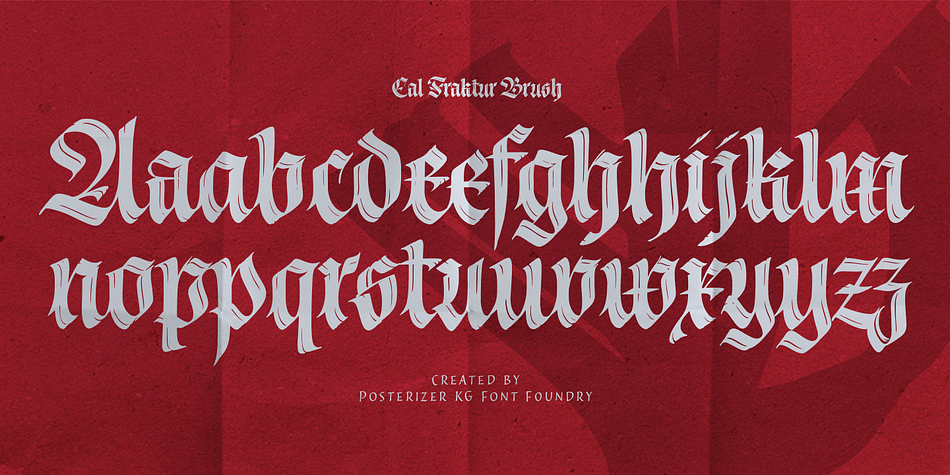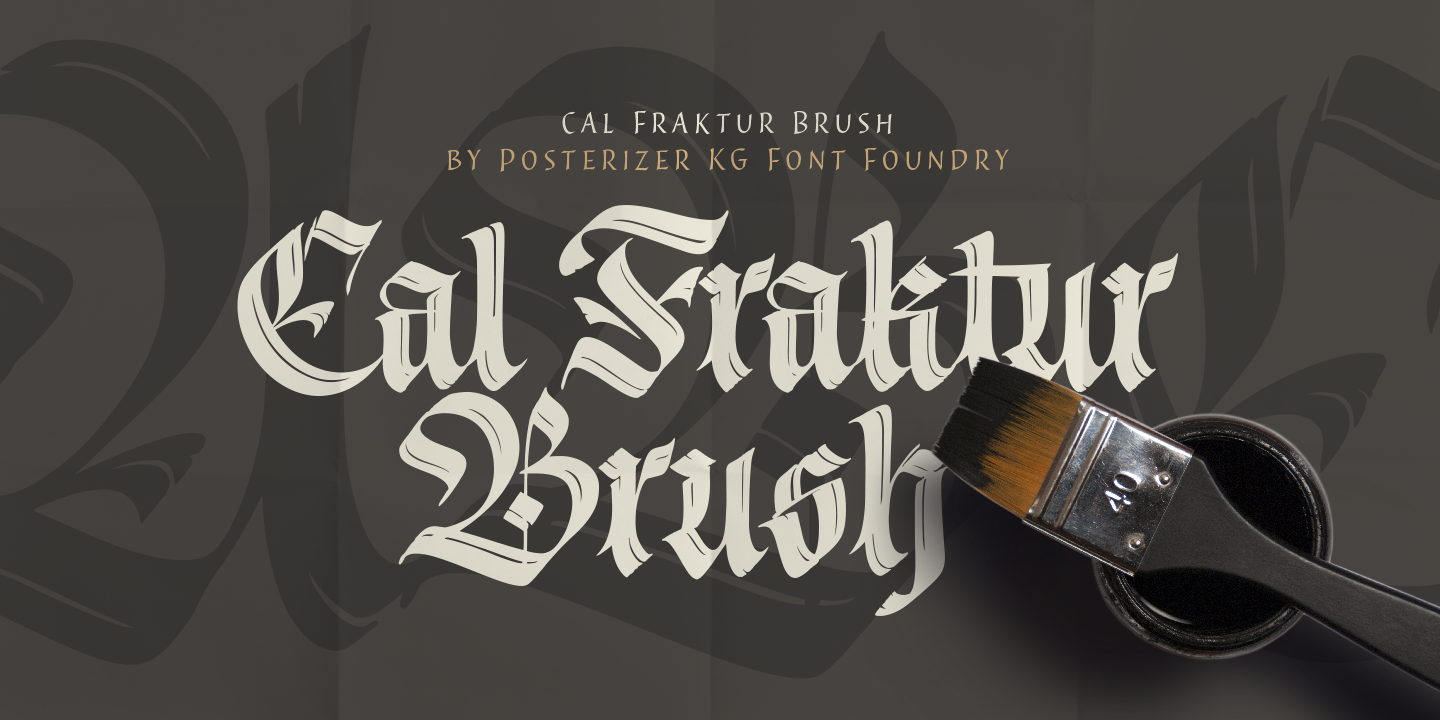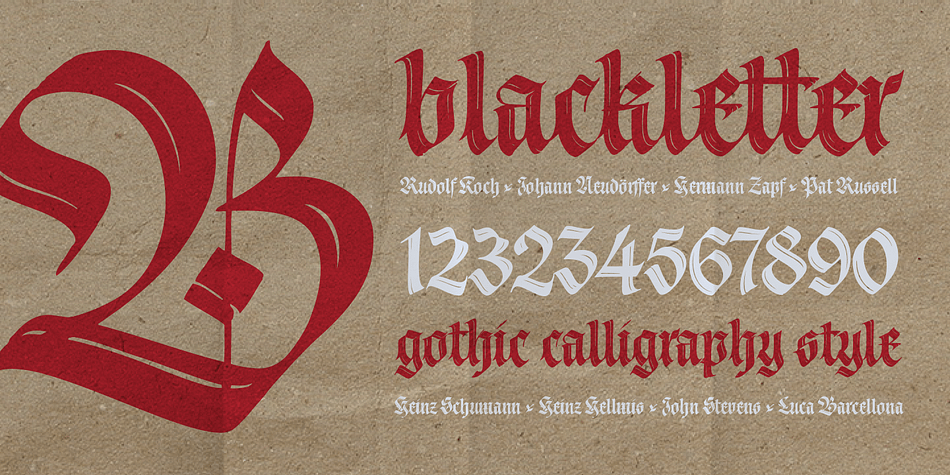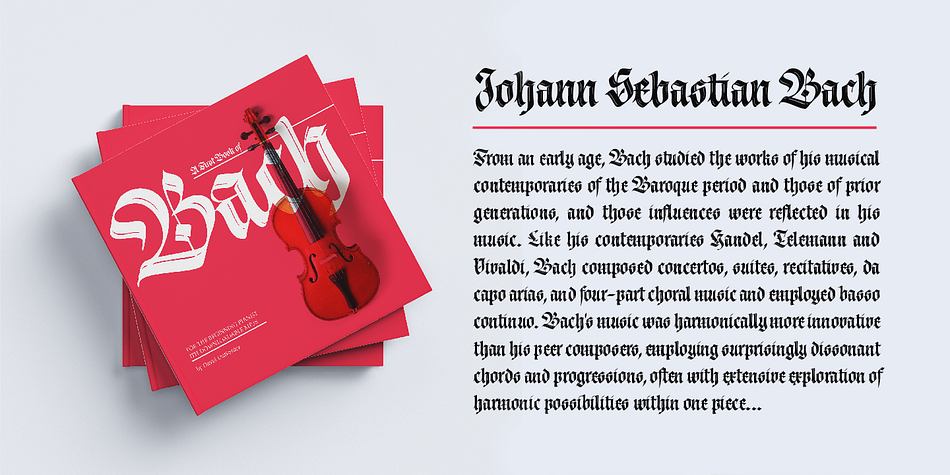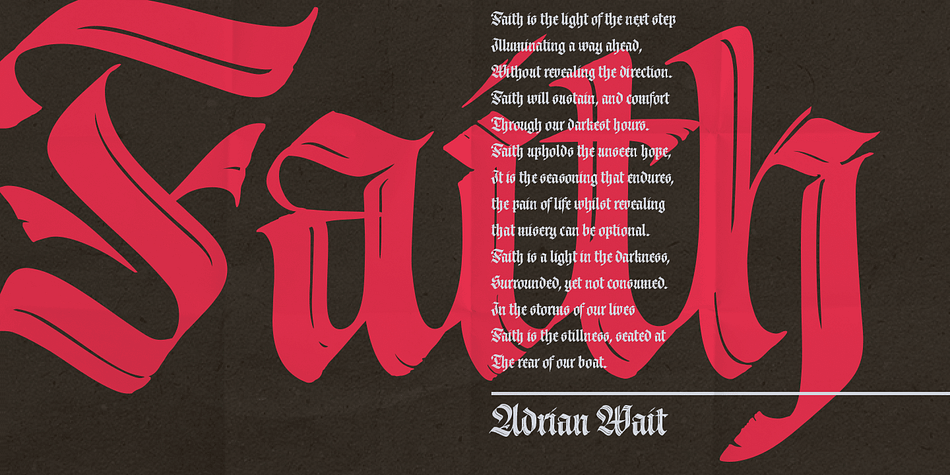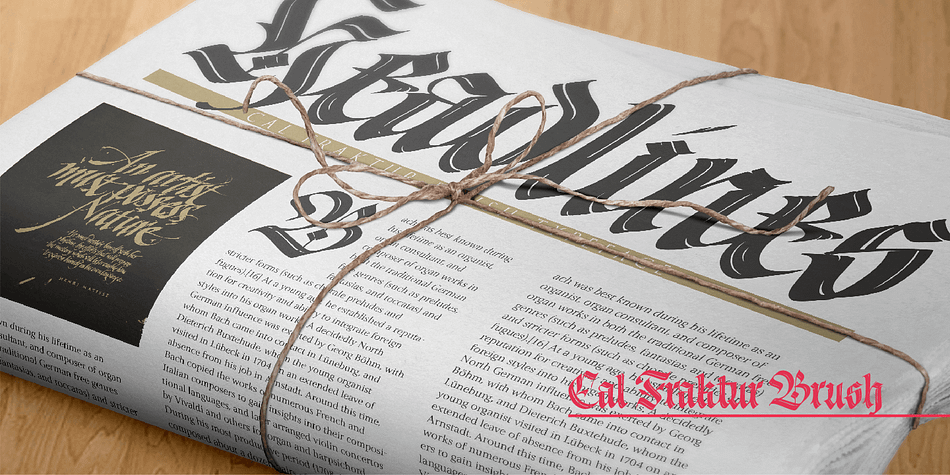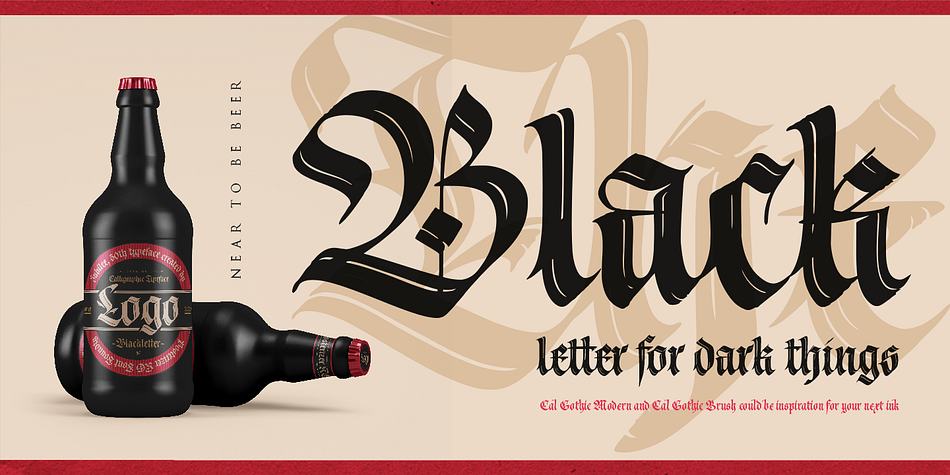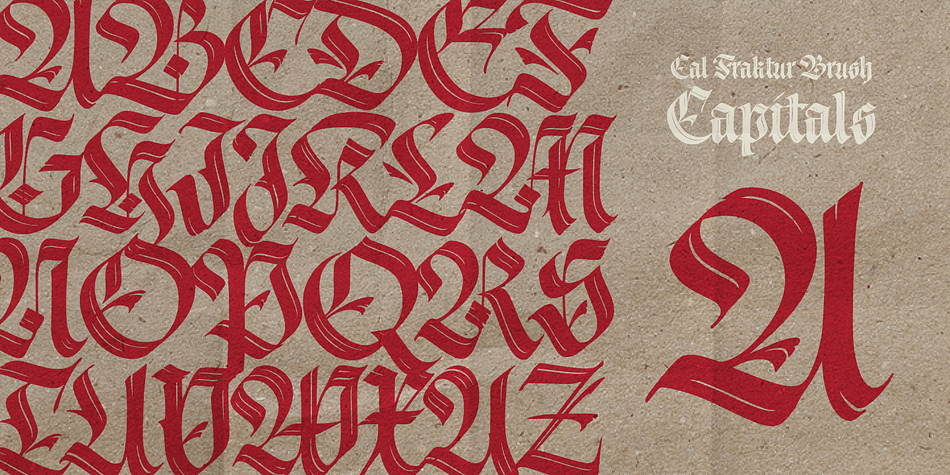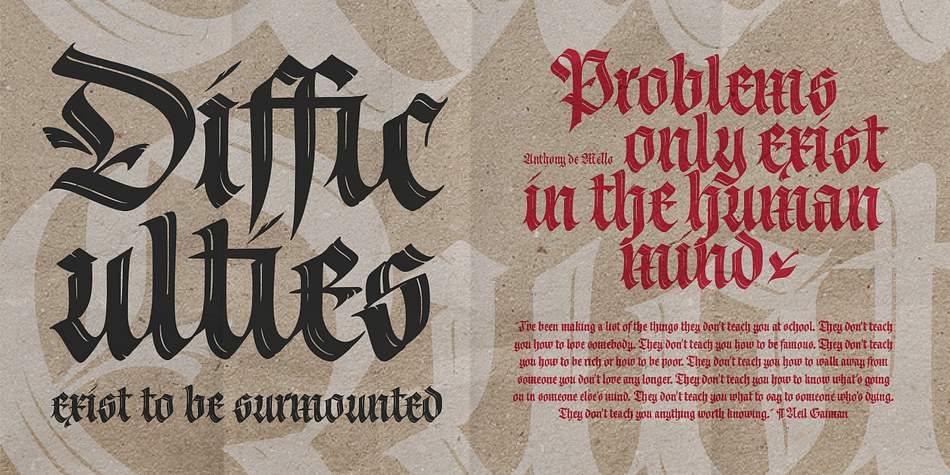
Designed by Lazar Dimitrijević, Cal Fraktur Brush is a blackletter and historical font published by Posterizer KG.
Cal Fraktur Brush is one more font from the PKG “Cal” (Calligraphic) group. This time, we used a wide brush instead of the calligraphic pen for the sketches.
This font is widely used in the typographic creation of shorter text forms such as headlines, tattoo and graffiti quotes, book covers, t-shirt designs, logos, posters, movie spots, banners, labels…
Foundry | Posterizer KG |
Styles | Blackletter, Historical |
Designer | Lazar Dimitrijević |